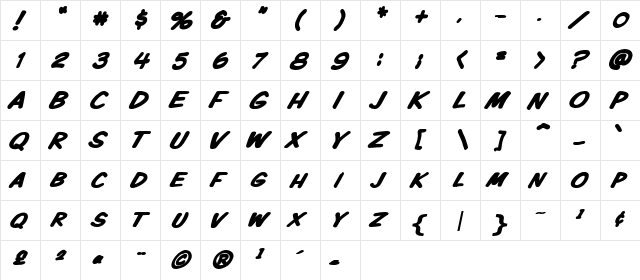
VTCKomixationSCBoldItalic Regular Font Preview
Design Context for VTCKomixationSCBoldItalic Typeface
VTCKomixationSCBoldItalic takes a measured approach to typography — its balanced proportions and neutral character make it a reliable workhorse for both digital and print work. Its italic angle brings a sense of urgency and motion to the letterforms. The heavy weight commands attention and anchors typographic hierarchies.
Pro Tip: Try VTCKomixationSCBoldItalic for annotation and caption copy alongside an upright companion — the contrast in angle creates a dynamic but ordered typographic system.